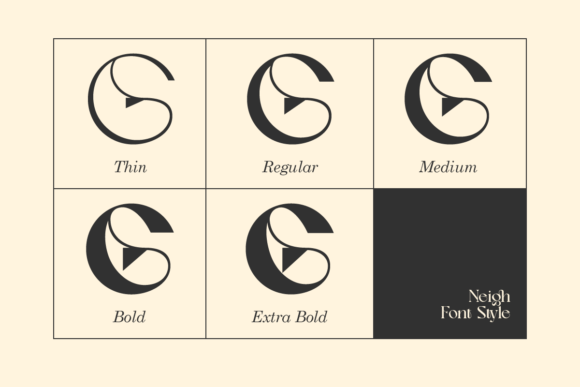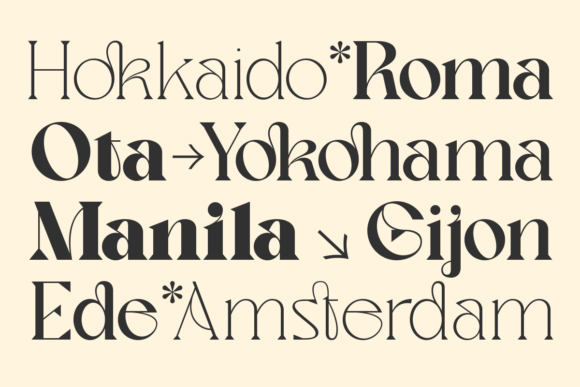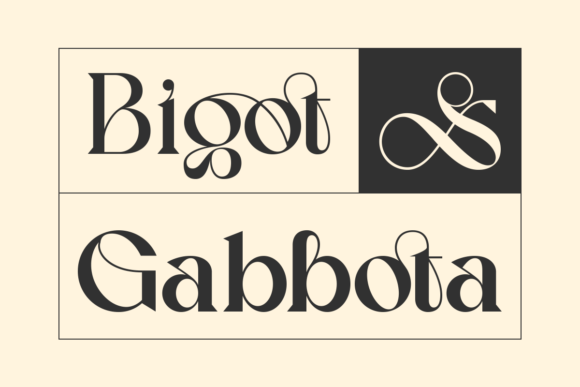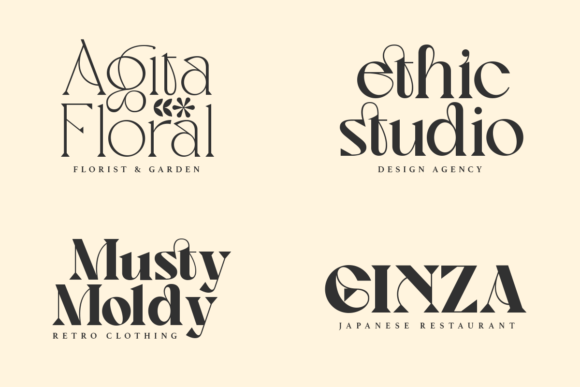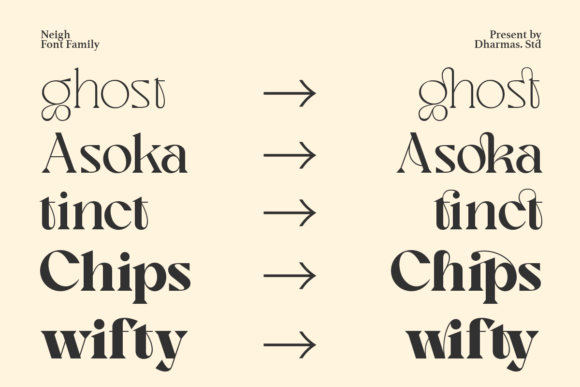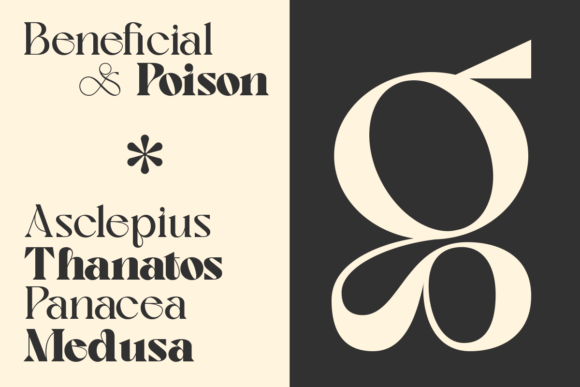
Introduction to Neigh Font
Introducing Neigh – A brand new modern family with a unique character.
Neigh is a fancy modern vintage serif typeface with beautiful ligatures, tons of special alternative glyphs, and multilingual support Neigh comes in 5 font styles (Thin, Regular, Medium, Bold, and extra bold).